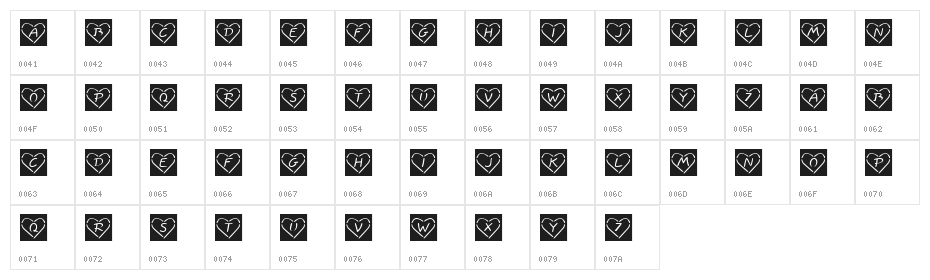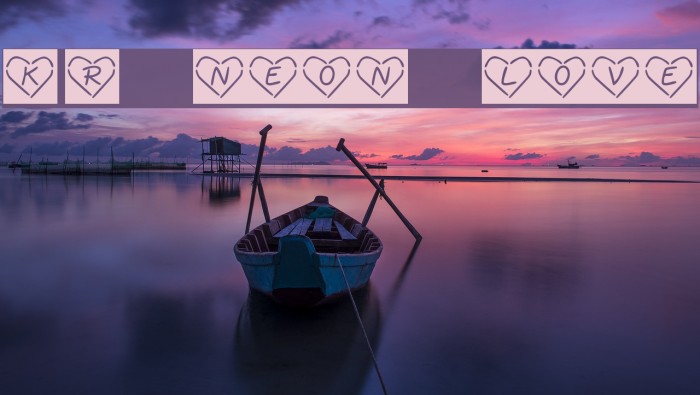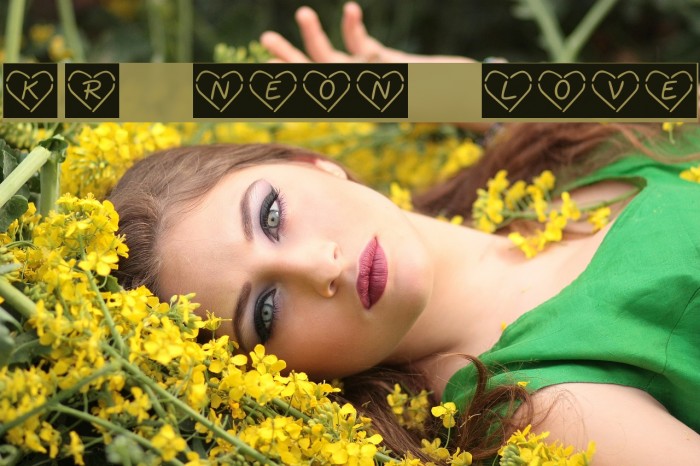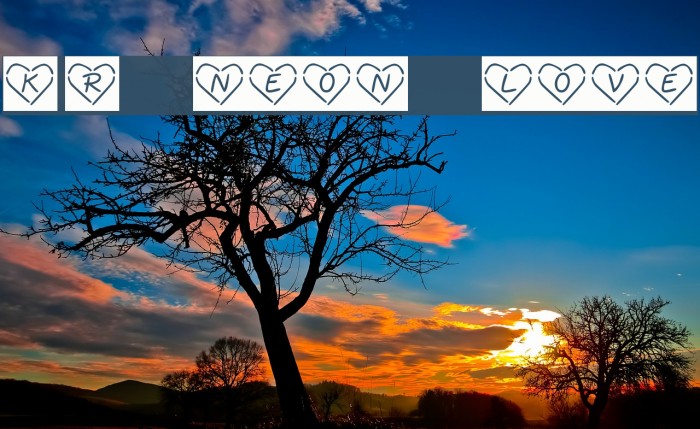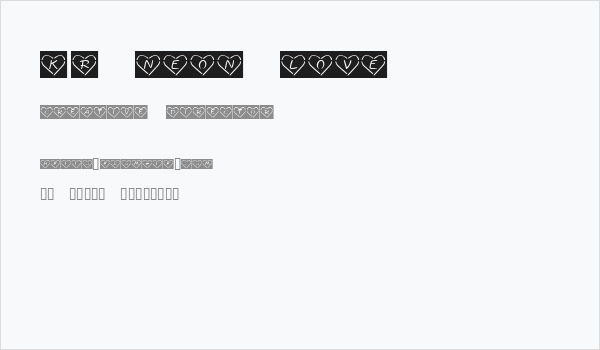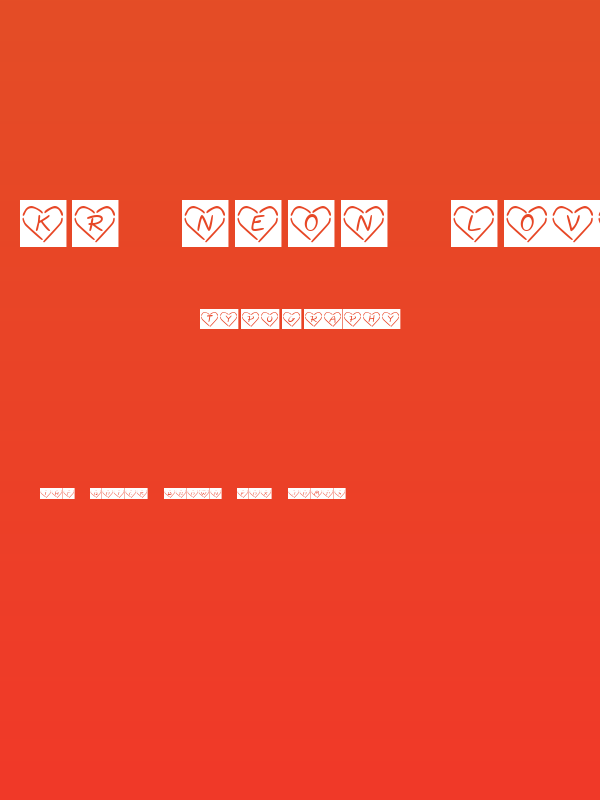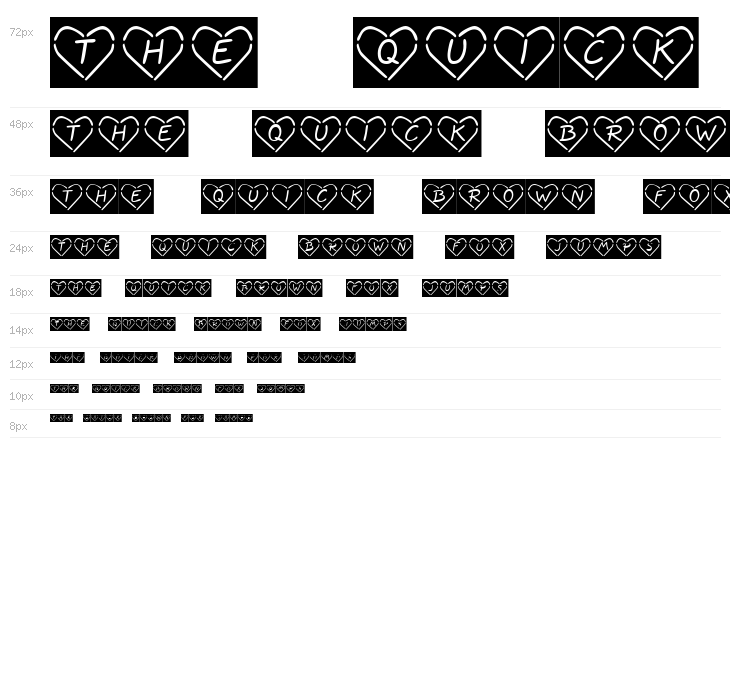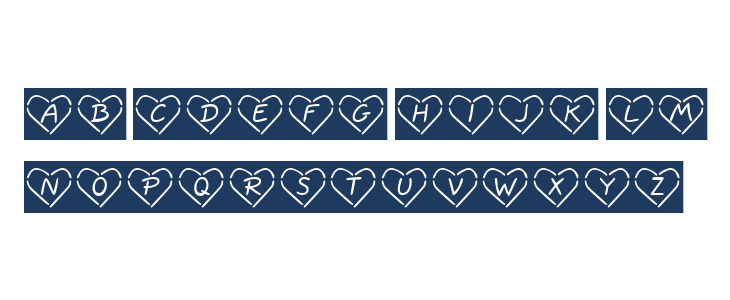
KR Neon Love Font
KR Neon Love Description
This playful and decorative font features each character enclosed within a heart shape, giving it a charming and whimsical appearance. The letters are styled with a neon-like outline that adds a modern and vibrant touch. The consistent use of heart shapes around each character creates a cohesive and thematic design, making it ideal for projects that require a fun and romantic aesthetic. The font's unique style is perfect for Valentine's Day themes, wedding invitations, or any design that aims to convey love and affection. The characters are evenly spaced within their heart outlines, ensuring readability while maintaining the decorative appeal.